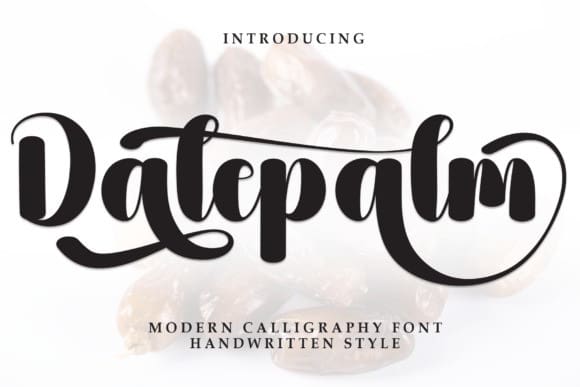
Datepalm Script Font
Datepalm Script Font is a sweet and friendly handwritten font. Fresh and casual, this font is ideal for writing wedding invitations, cards, or any other design that might need a lovely touch.